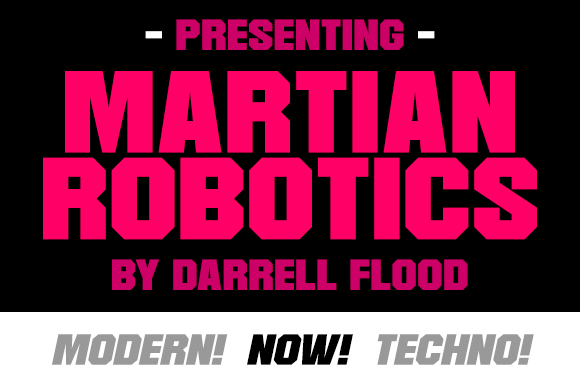
In the realm of digital artistry, where letters dance across screens and pixels ignite imagination, Martian Robotics Font emerges as a stellar creation, a testament to the boundless possibilities of typography. This modern robot-like font, meticulously crafted by the visionary Dadiomouse, commands attention with its angular sci-fi style, propelling users into a realm of space adventures and technological marvels.
Martian Robotics Font, a display font of extraordinary prowess, transcends the mundane, transforming ordinary text into captivating narratives. Its sharp edges and geometric precision evoke a sense of futuristic elegance, reminiscent of sleek spaceships gliding through the cosmos. Each character, meticulously designed, resembles a robotic entity, exuding a captivating aura of innovation and modernity.
Step into a world where imagination reigns supreme, where Martian Robotics Font becomes the conduit for expressing your creative genius. Unleash your inner astronaut and embark on a typographic odyssey, crafting designs that resonate with the allure of the cosmos. Whether you're a seasoned designer or a budding enthusiast, this font is your celestial companion, guiding you through uncharted territories of visual expression.
Immerse yourself in the limitless possibilities of Martian Robotics Font. Its angular forms dance harmoniously with the curves of your imagination, creating designs that captivate and inspire. Explore the vast expanse of space themes, where celestial bodies and nebulous wonders serve as your canvas. Craft logos that resemble starships embarking on daring missions, or create posters that evoke the awe-inspiring vastness of the universe.
Martian Robotics Font transcends the boundaries of mere typography; it's a gateway to unlocking your creative potential. Its versatility extends beyond space-themed designs, seamlessly adapting to a myriad of styles and genres. From sleek and futuristic interfaces to captivating social media graphics, this font adds a touch of innovation and dynamism to any project.
Join the ranks of creative pioneers who have embraced Martian Robotics Font as their weapon of choice. Let your imagination soar to new heights, untethered by the constraints of ordinary fonts. Experience the exhilaration of crafting designs that leave an indelible mark, designs that transport users to the farthest corners of the galaxy and beyond.
With Martian Robotics Font as your creative ally, you hold the power to transform the ordinary into the extraordinary. Its angular grace and robotic charm will elevate your designs to new heights, leaving your audience captivated and eager for more. Embrace the allure of space and technology, and let Martian Robotics Font ignite your creative spark.